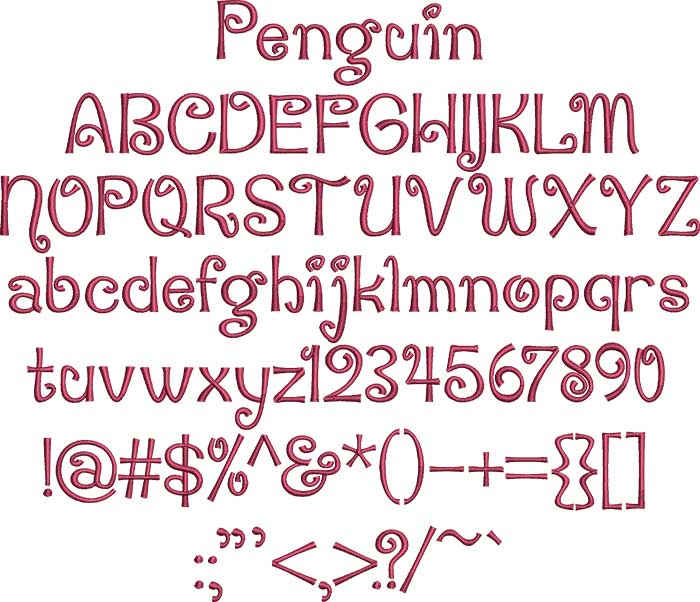
BX Embroidery Font: Penguin Attack
BX Embroidery Font: Penguin Attack Font Bundle (4 sizes) is a casual curly machine embroidery font that includes A-Z, a-z, 0-9 and punctuation; 4 sizes.
BX Embroidery Font: Penguin Attack is a casual curly machine embroidery font that includes A-Z, a-z, 0-9 and the following punctuation: ~`!@#$%^&*()-+={}[]|:;”‘<>,.?/ (93 total characters).